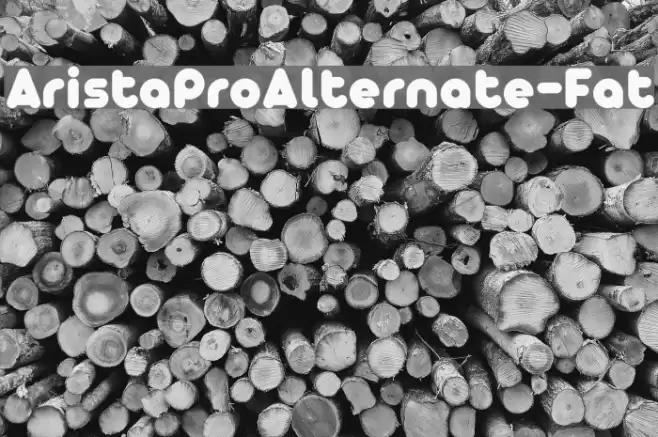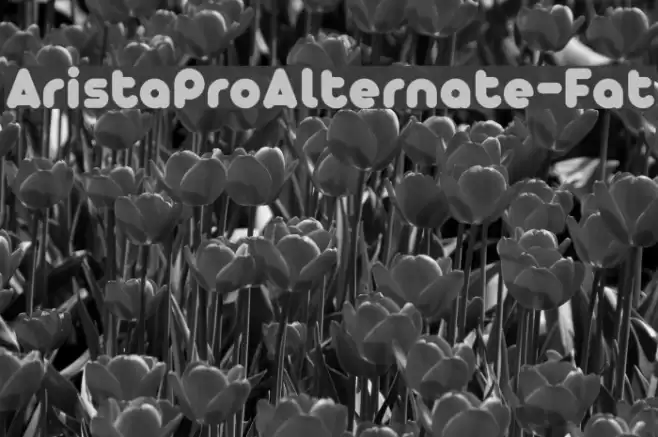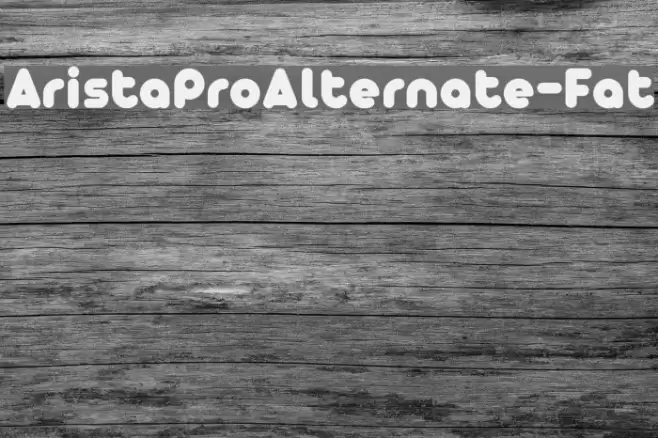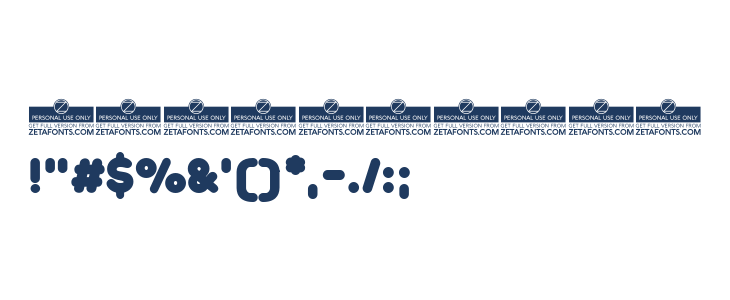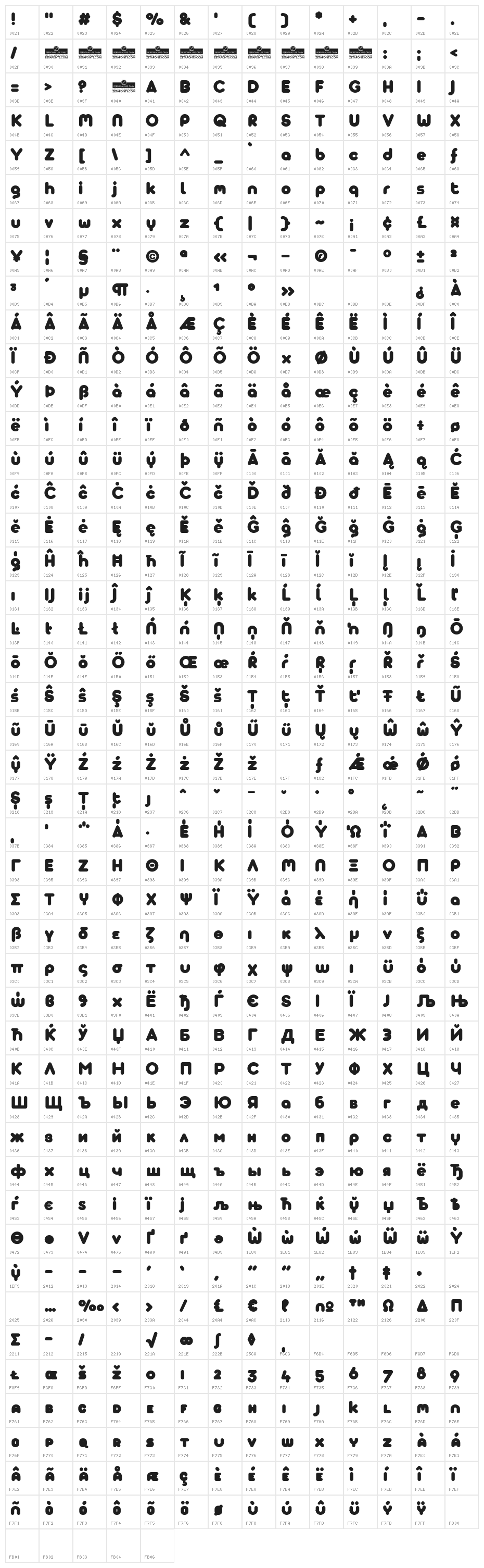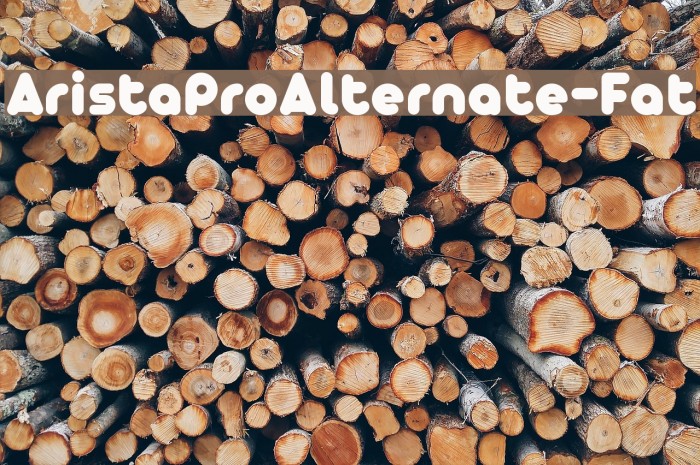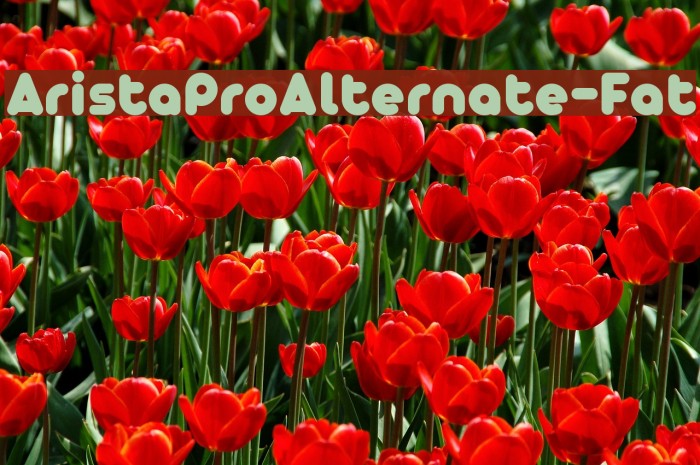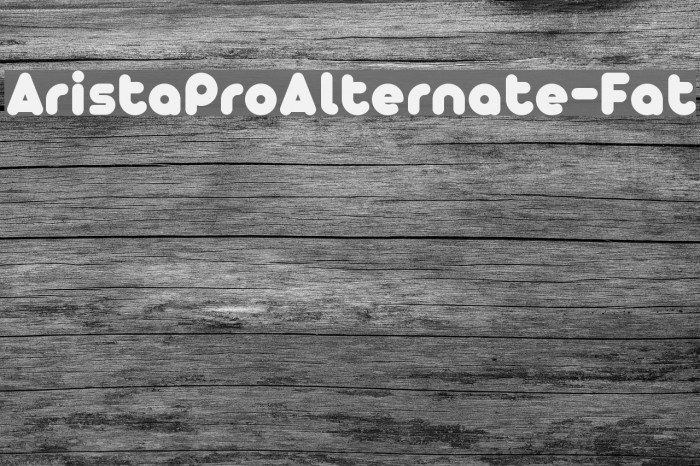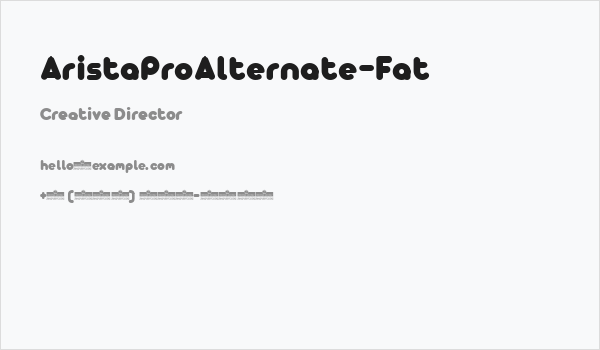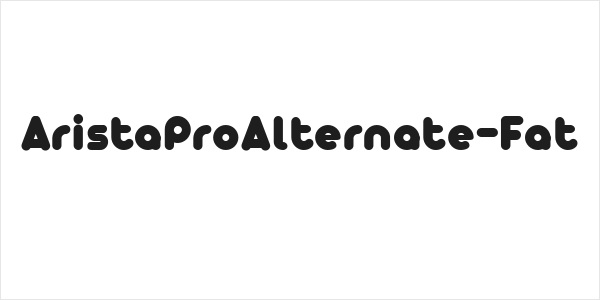
AristaProAlternate-Fat Font
AristaProAlternate-Fat Description
This font features a bold and rounded style, characterized by its smooth, thick strokes and playful appearance. The letters are uniformly wide, with a consistent thickness that gives it a solid and substantial look. The rounded edges and lack of sharp corners contribute to a friendly and approachable feel. The font maintains a modern aesthetic, suitable for contemporary design projects. Its uniformity and simplicity make it highly legible, even at smaller sizes. The characters are evenly spaced, ensuring readability and a clean appearance. This font's unique style makes it ideal for projects that require a touch of fun and creativity.
A bold, rounded font with a playful and modern style from Uncategorized fonts.
- Proposed Projects: Ideal for children's books, playful branding, posters, and social media graphics.